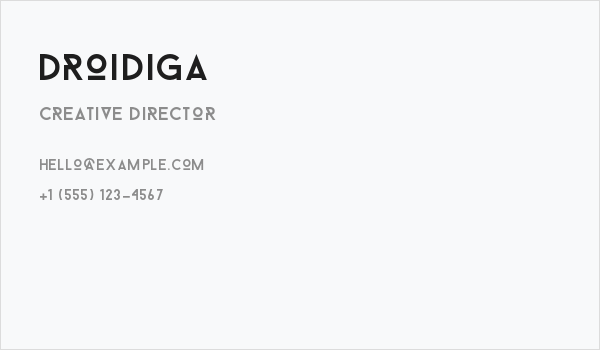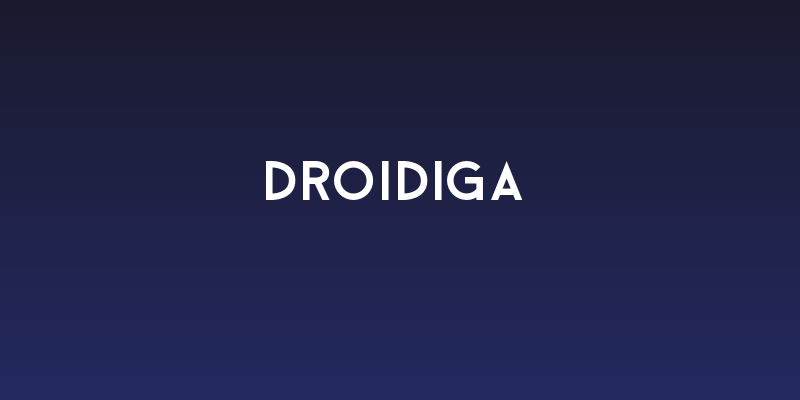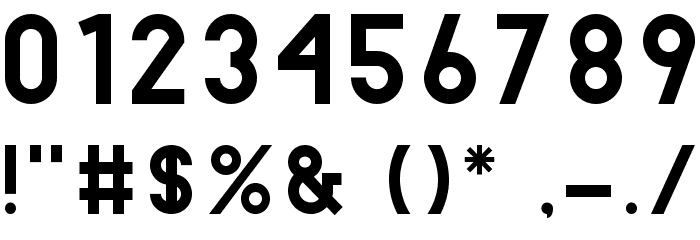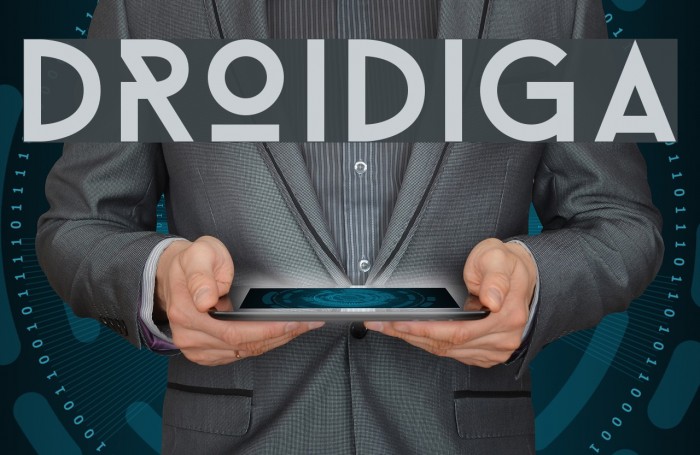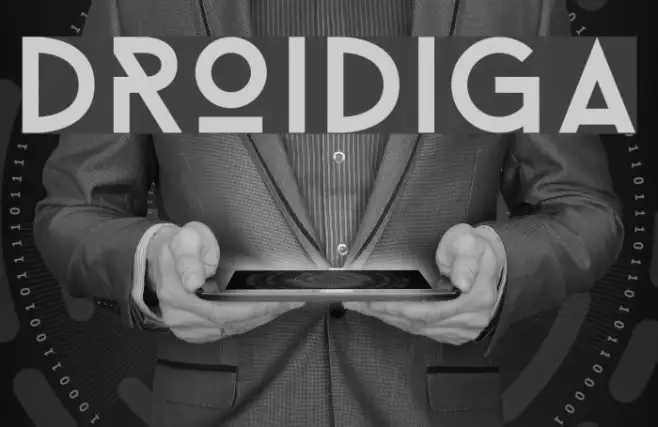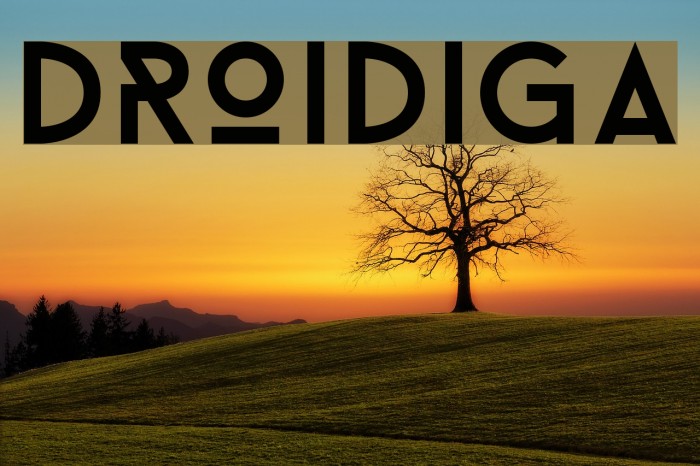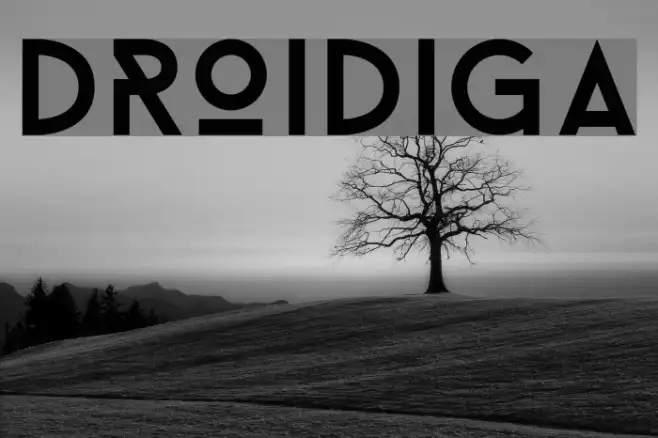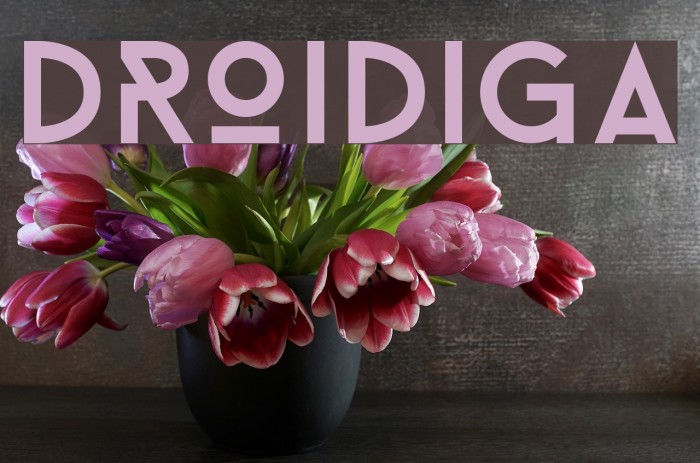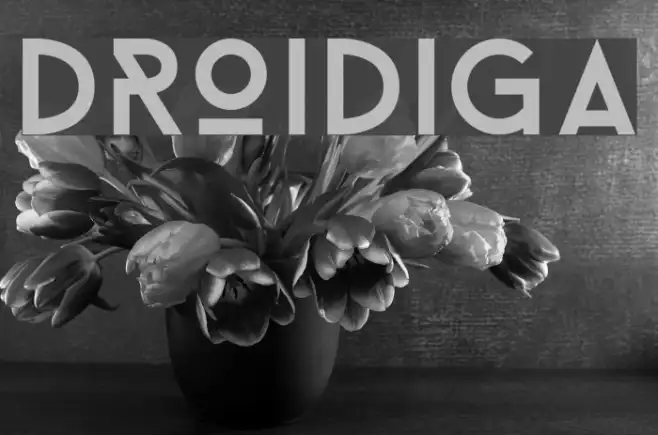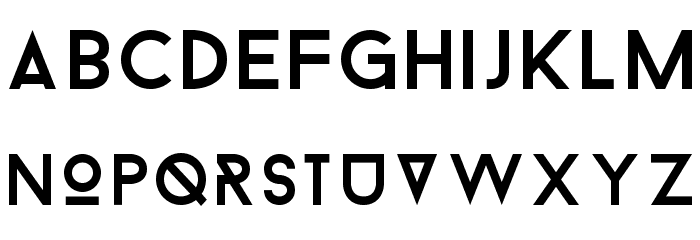
Droidiga Font
Droidiga Description
This font features a bold and geometric sans-serif style with clean lines and a modern aesthetic. The uppercase letters are uniform in height, creating a cohesive and structured appearance. The lowercase letters maintain a similar geometric form, enhancing readability while retaining a contemporary look. Numerals are clear and distinct, matching the overall boldness of the typeface. Special characters are designed with the same attention to geometric precision, ensuring consistency across all glyphs. The font's design is versatile, making it suitable for a variety of digital and print applications.
| Use Case | Headlines, Logos, Digital interfaces |
| Proposed Projects | Ideal for branding, advertising, web design, and editorial layouts. |